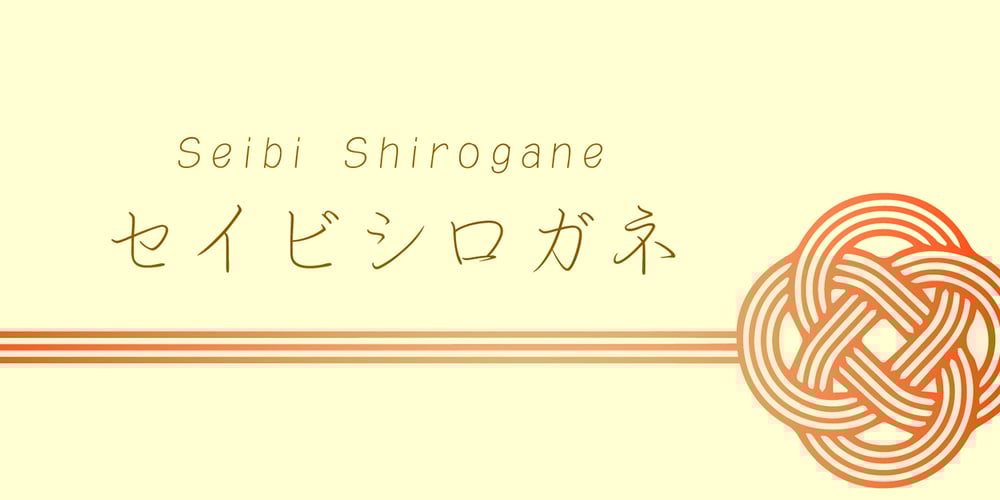
Seibi Shirogane Font Family was designed by published by Nihon Literal. Seibi Shirogane contains 1 styles and family package options. With an attractive hand-penned style featuring a natural balance between kanji and kana, characters are perfectly aligned whether typeset vertically or horizontally. Leave plenty of space between lines for the best effect. タテ組・ヨコ組でもラインが揃う、漢字とかなのバランスも自然な手書き風の心地よいペンタッチです。行間をあけてゆったり組むのがおすすめです。硬筆ではなく、行書風の脈絡が生きたペンタッチなので、柔らかでも読みやすい印象の書体です。